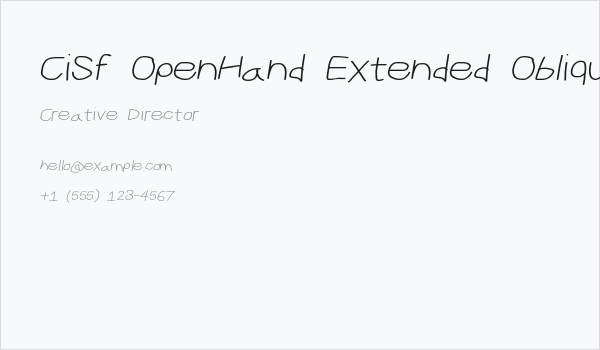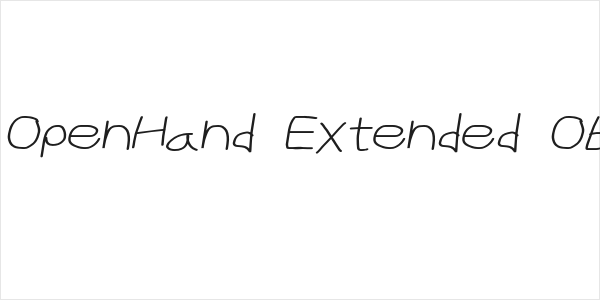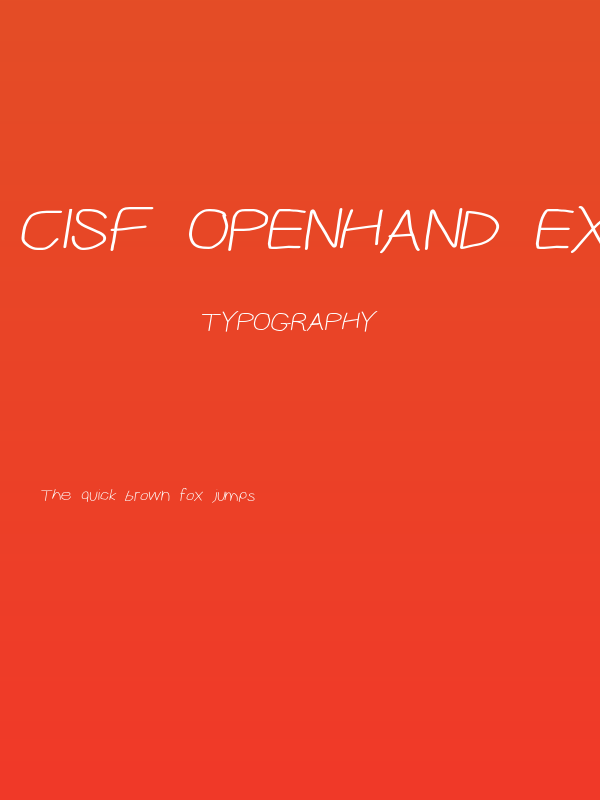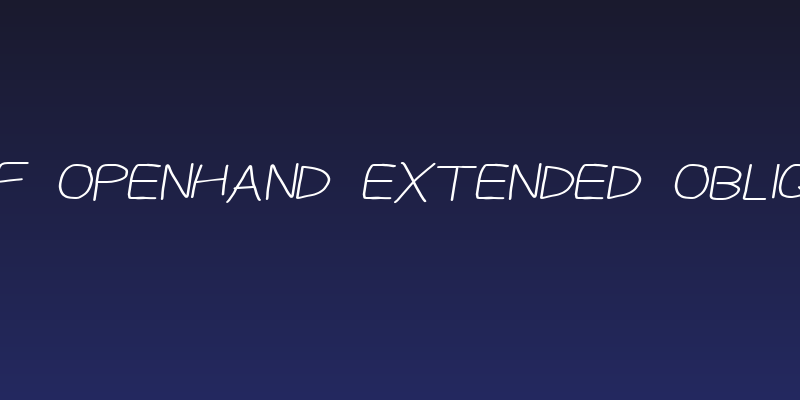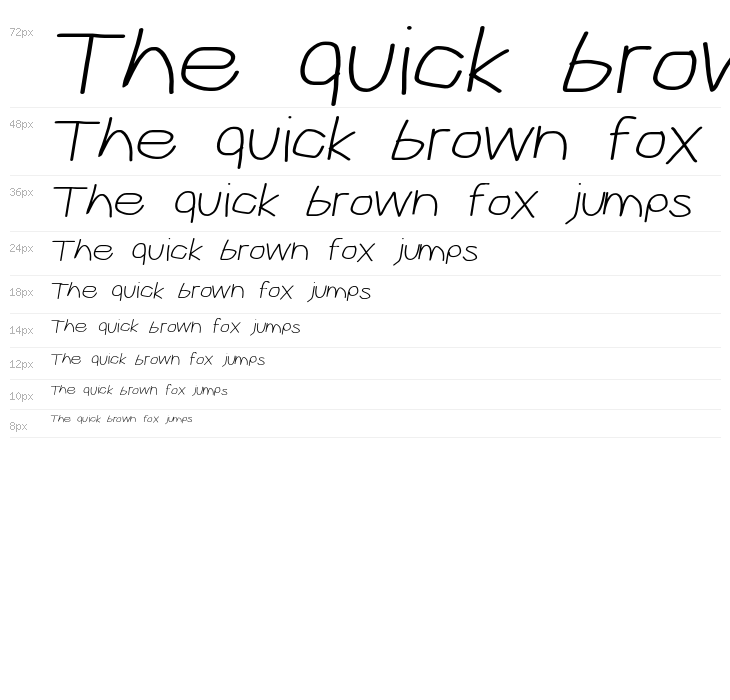
CiSf OpenHand Extended Oblique Font
CiSf OpenHand Extended Oblique Description
This font features a handwritten style with a casual, informal appearance. The characters are slightly slanted, giving an oblique effect that adds a dynamic and lively touch. The strokes are consistent in width, providing a uniform look across all letters and numbers. The uppercase and lowercase letters maintain a cohesive style, with rounded edges and smooth curves that enhance readability. The numerals and special characters follow the same design principles, ensuring a harmonious overall appearance. This font's playful yet structured design makes it versatile for various creative applications.
| Proposed Projects | Ideal for greeting cards, personal branding, informal invitations, and creative projects that require a personal touch. |